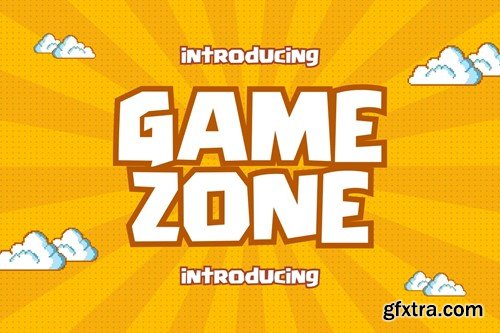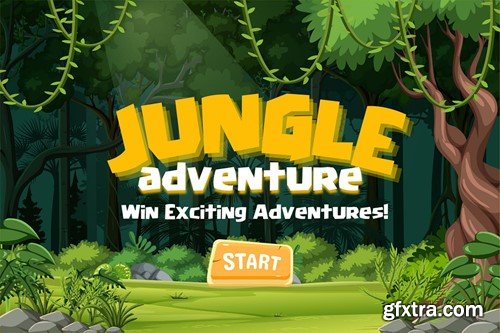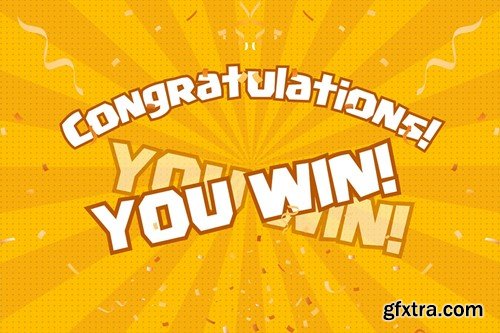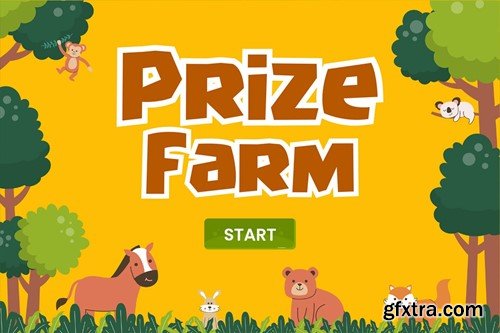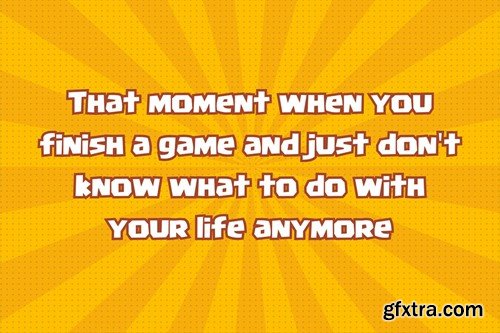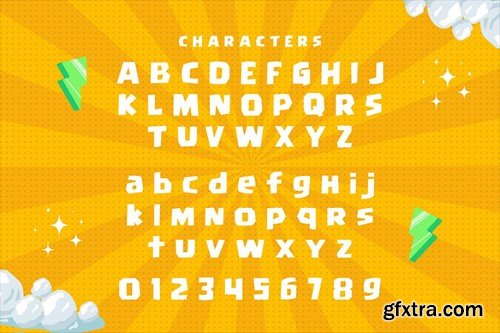
Game Zone - Game Display Font
Game Zone - Game Display Font The Game Zone is a game display font that is perfect for a variety of uses. This font is available in TTF and OTF formats, so it can be used in a variety of graphic design and social media applications. The zip file is include: